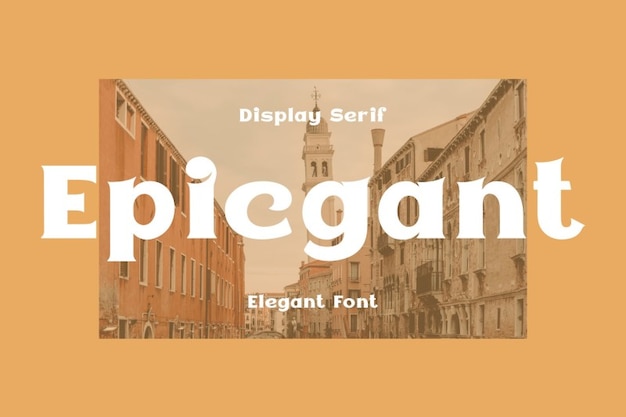
Epicgant Font
Epicgant is a bold and modern font designed to make a statement, reminiscent of vibrant stickers. Each character pops with boldness and energy, perfect for eye-catching headlines, posters, and digital designs. Whether for branding, advertising, or creative projects, Epicgant adds a contemporary and dynamic touch that commands attention and leaves a lasting impression.